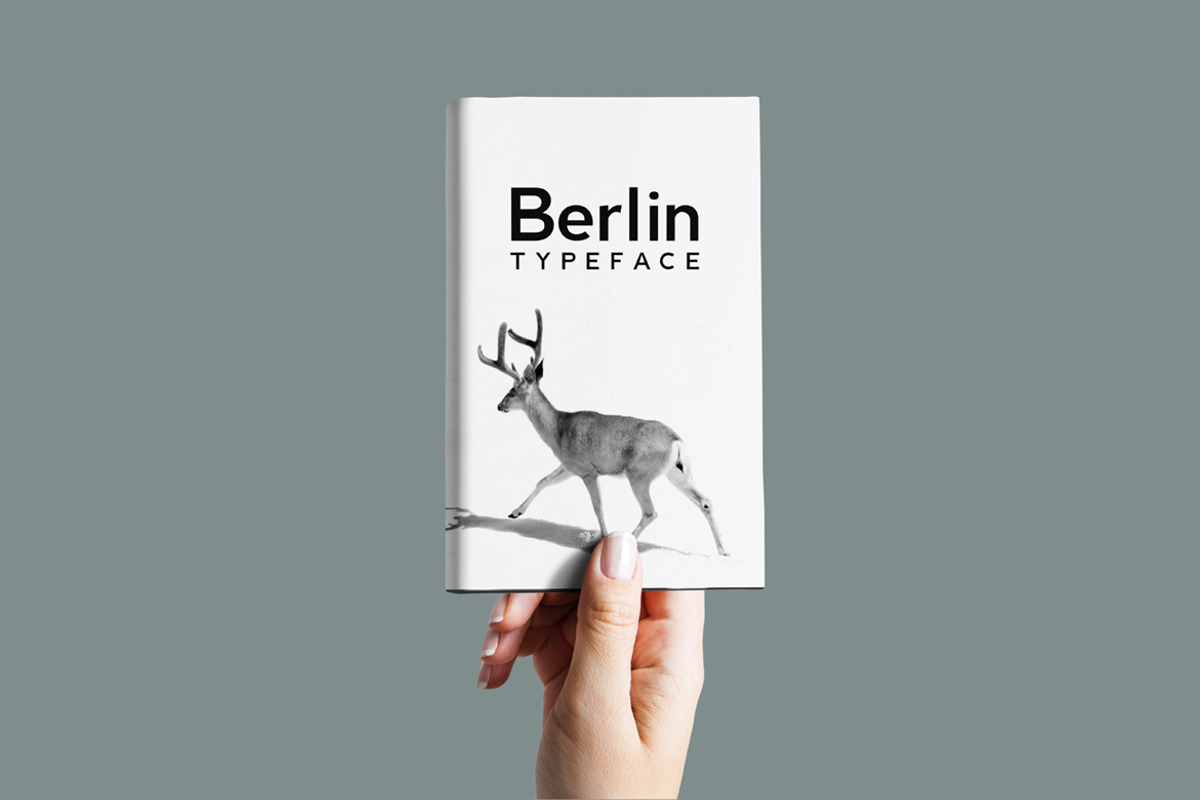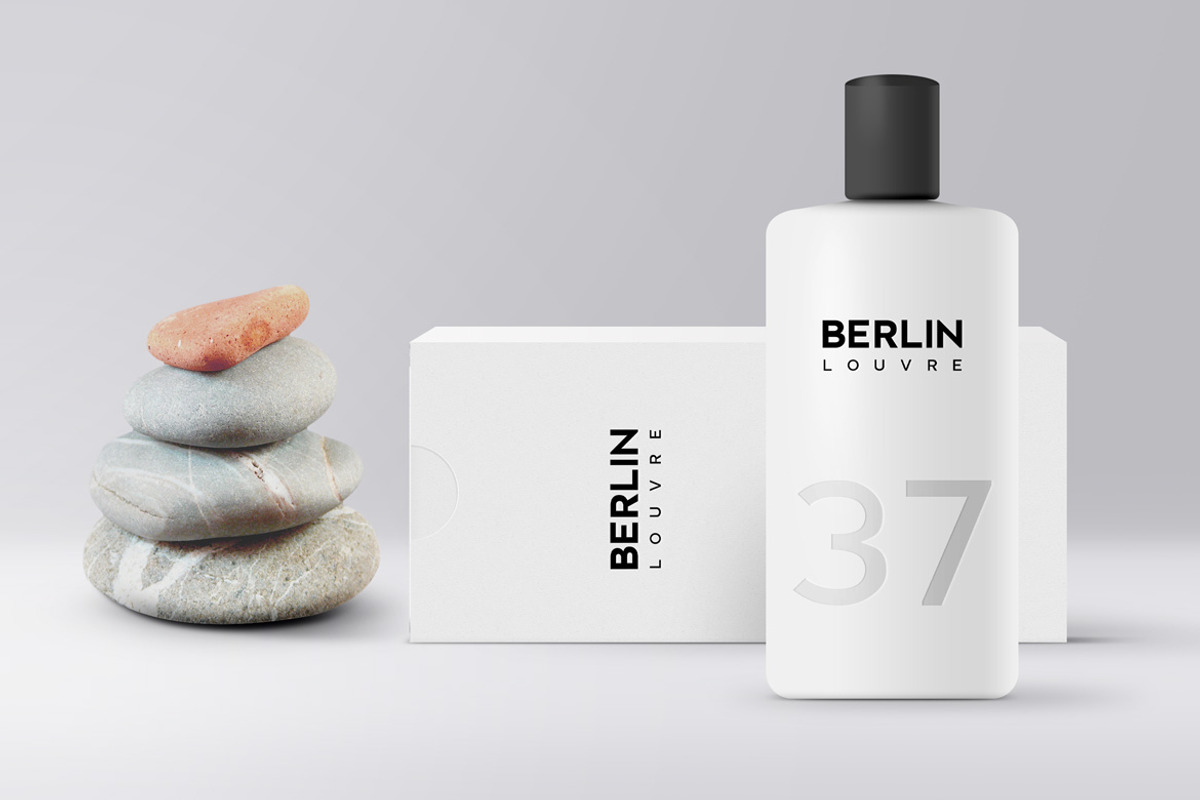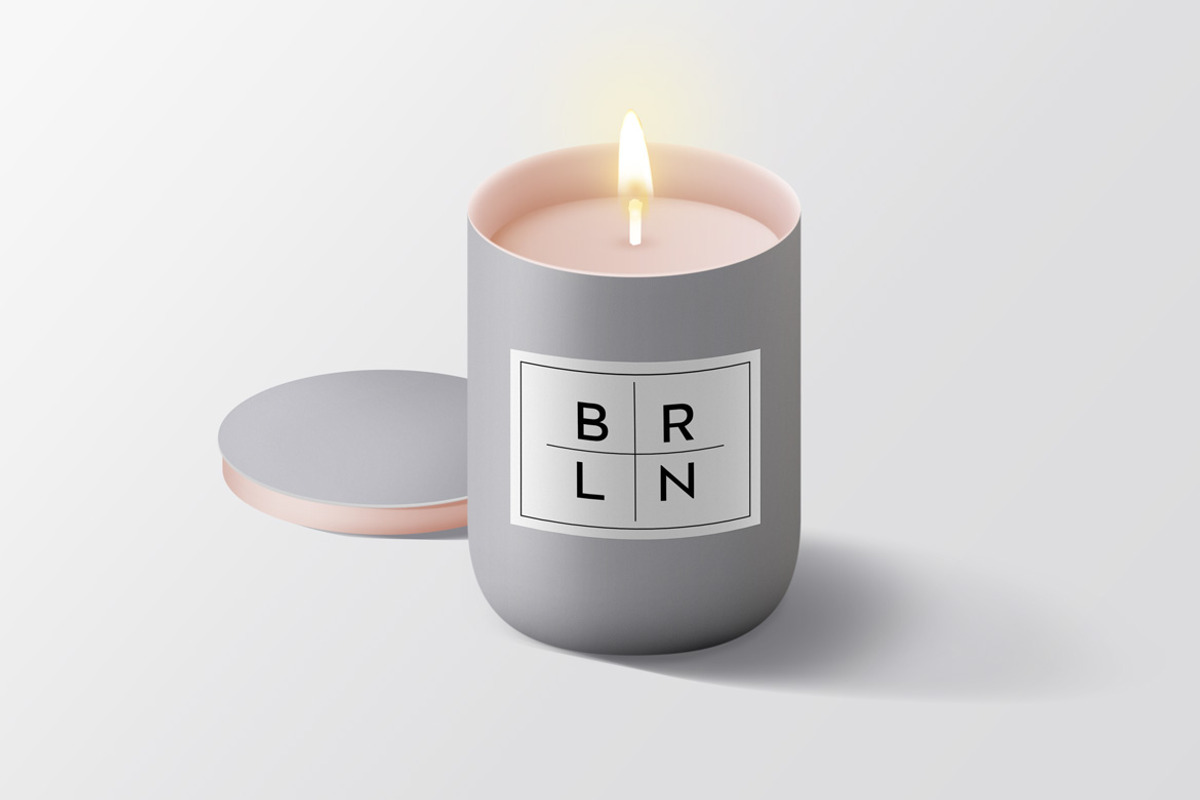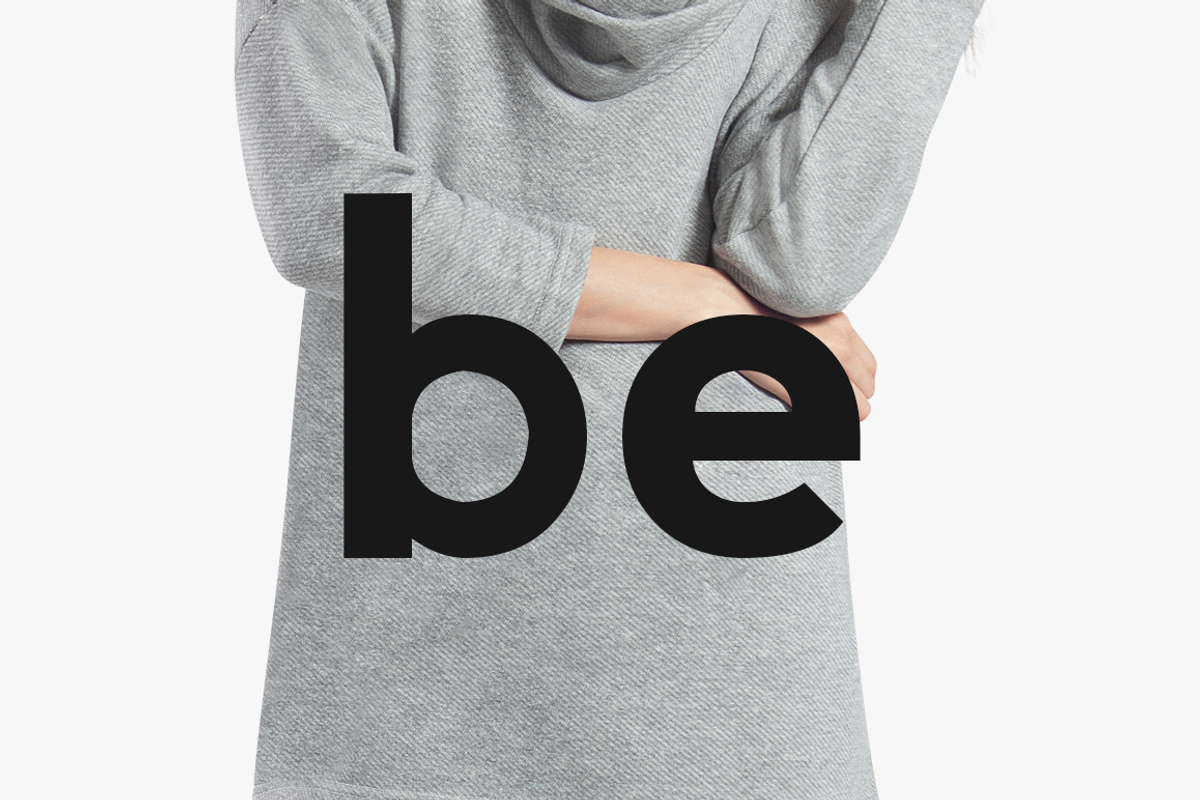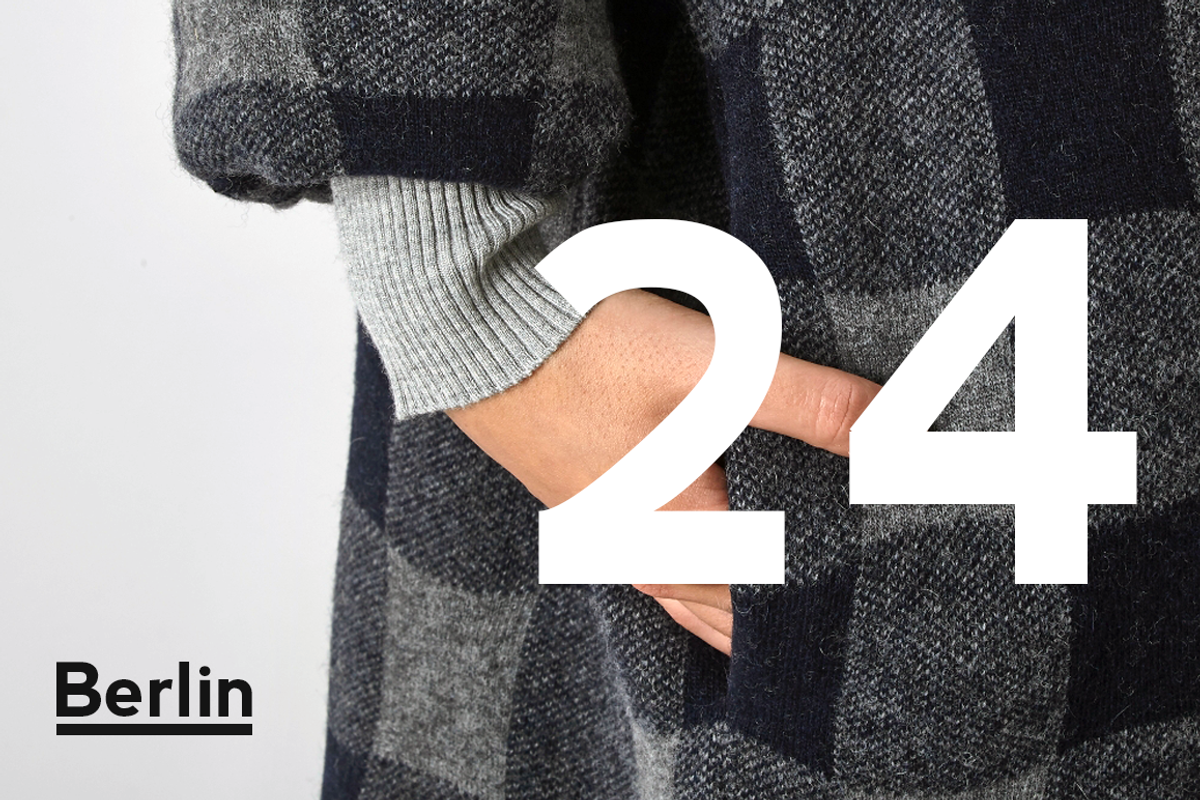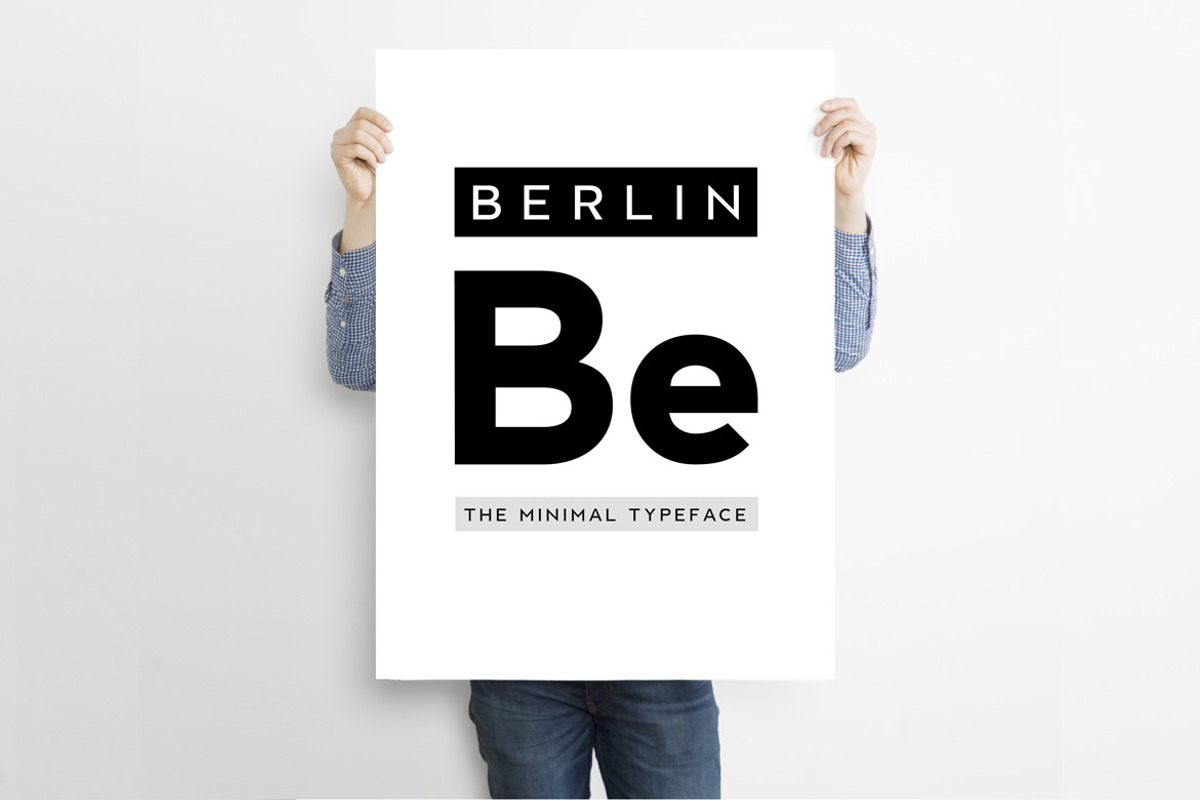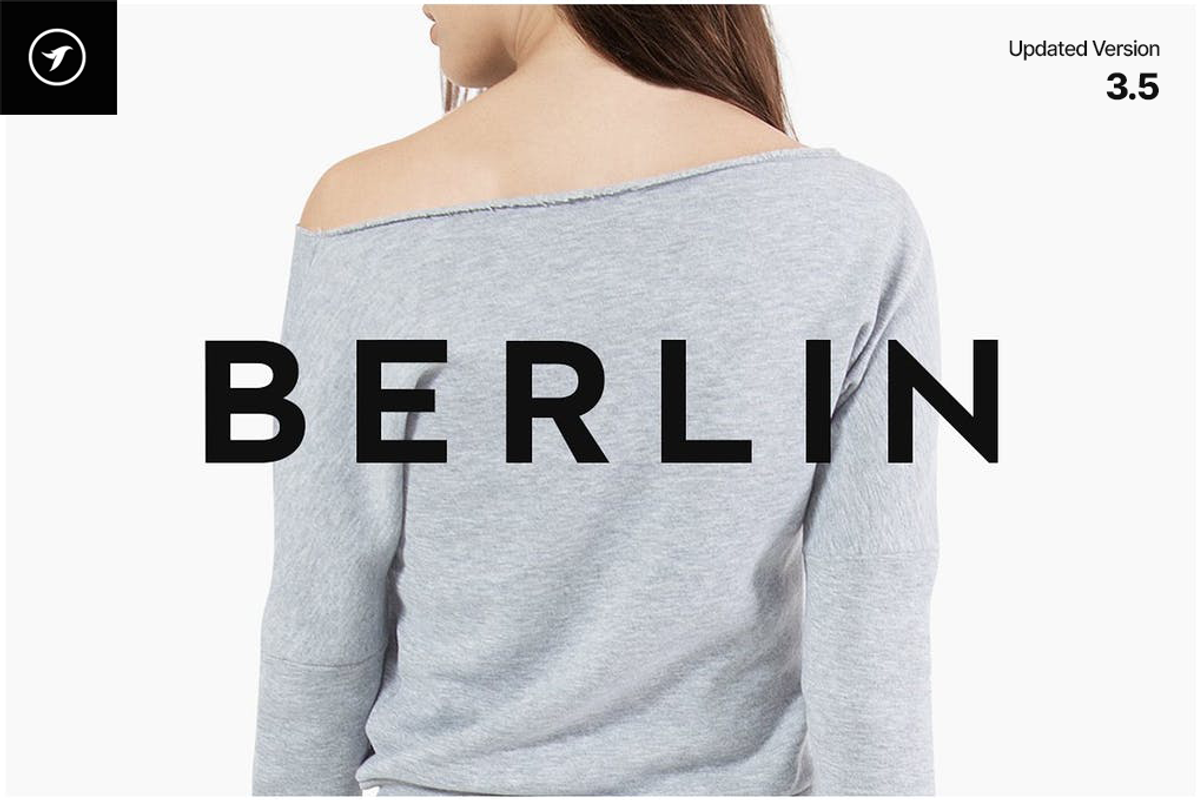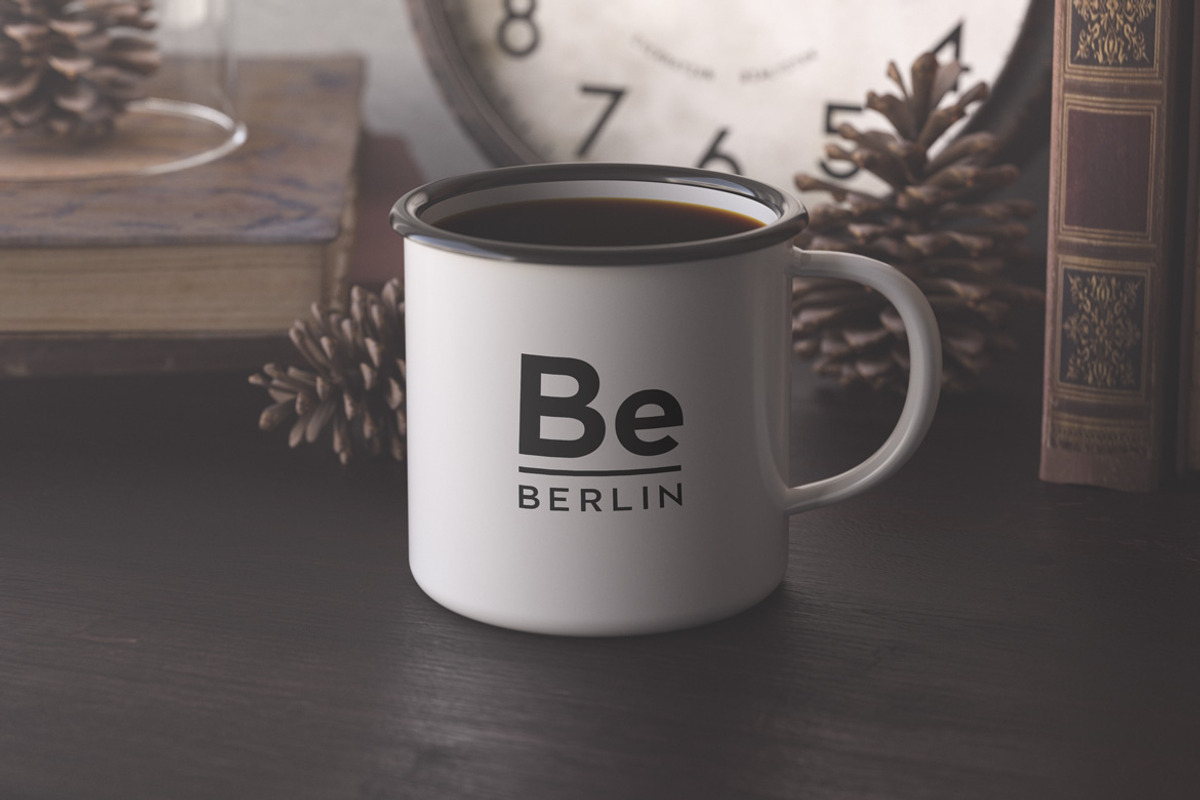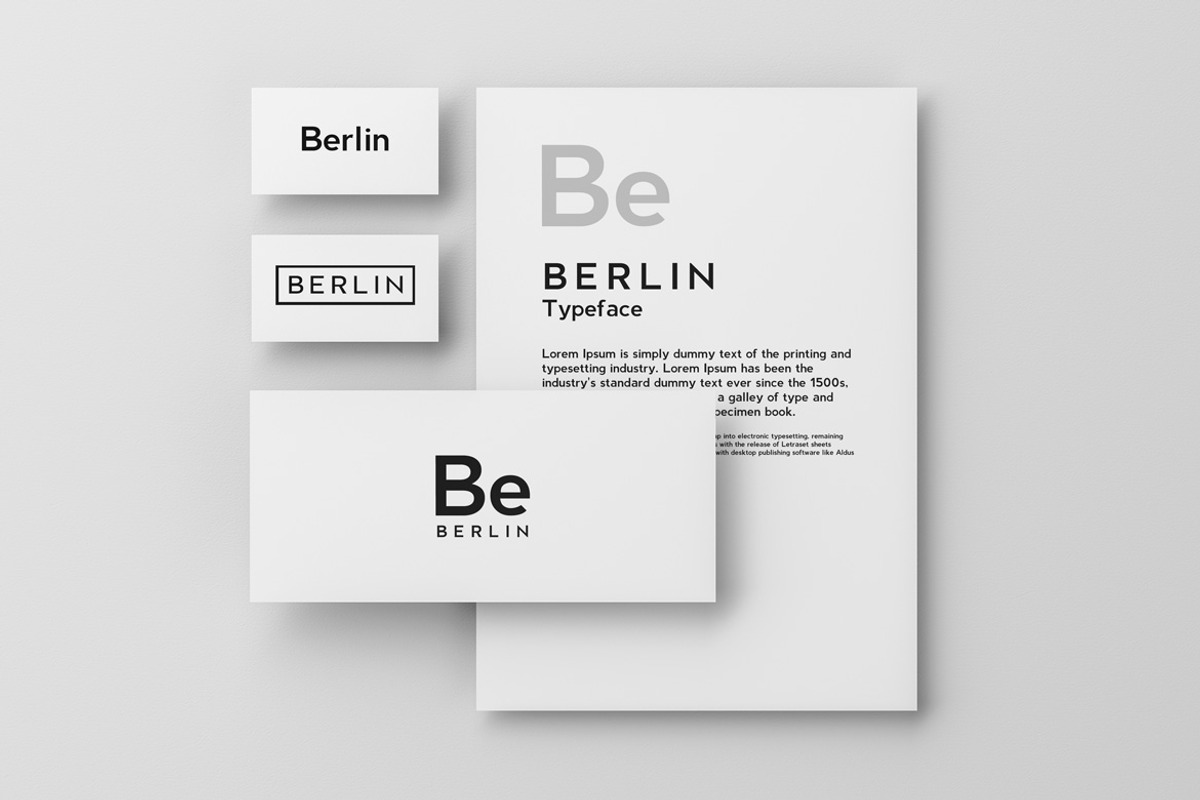
BERLIN - Minimalist Font Family
Major update v3.5 (Released on 13th March 2024) - All the glyphs have been updated with periodic improvements and technical enhancements, and italic versions of all weights have been added to the family, resulting in a total of 8 fonts.
BERLIN is a modern Sans Serif headline typeface inspired by some classic geometric typefaces that keep the minimalism at it's level best. The concept of BERLIN is based on our SIGNIA PRO typeface which was released earlier, but we have added more perfection and attention to the details.
BERLIN will be best suited for creating nicely looking headlines (add some letter spacing and it will amaze you) that you always find in fashion web stores and minimal portfolio websites. The font comes with 4 weights with all formats including Web Fonts.
BERLIN font family now comes with 8 fonts in total:
- Light
- Light Italic
- Italic
- Bold
- Bold Italic
- ExtraBold
- ExtraBold Italic
EXTENDED LANGUAGE SUPPORT:
Each weight includes extended language support including Western European & Central European sets